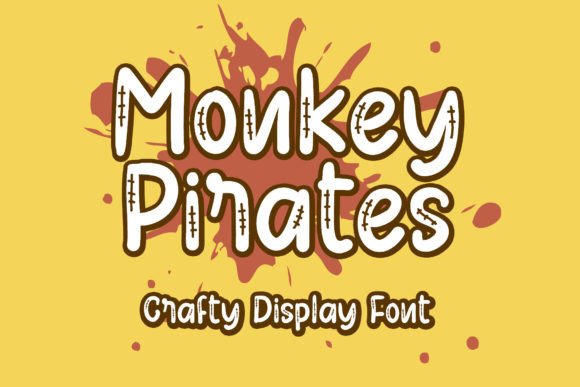
Unleash the playful spirit of your T-shirts with Monkey Pirates, the display font brimming with charm and personality! This delightful creation by Annisa Afni is a delightful visual treat that takes your designs to new heights of expression.
In a world where T-shirts have become a canvas for personal style, Monkey Pirates stands out as a font that speaks volumes. Its whimsical characters dance across your designs, capturing attention and igniting joy in the hearts of those who see it. Each letter, meticulously crafted with a touch of artistry, carries a story within its unique shape, inviting the wearer to embark on an enchanting journey.
With Monkey Pirates, your T-shirts transform into vibrant tales, captivating imaginations with every glance. Its playful strokes evoke a sense of adventure, inviting the wearer to explore the depths of their creativity and embrace their inner child. It's a font that sparks conversations, bringing smiles to faces and creating an unbreakable bond between the wearer and the design.
Imagine the thrill of creating T-shirts that tell stories, T-shirts that become cherished keepsakes, passed down from generation to generation. Monkey Pirates is your gateway to this world of storytelling, a font that breathes life into your designs, making them more than just clothing; they become expressions of art, reflections of your unique personality.
Join the ranks of creative visionaries who have discovered the magic of Monkey Pirates, allowing their T-shirt designs to shine with unparalleled brilliance. Whether you're a seasoned designer or just starting your journey, this font will ignite your imagination and open up a world of endless possibilities.
Embark on this creative voyage with Monkey Pirates, and let your T-shirts become beacons of joy, spreading happiness wherever they go. Your designs will be the talk of the town, admired for their originality and infectious charm. Dive into the world of Monkey Pirates and let your creativity run wild!